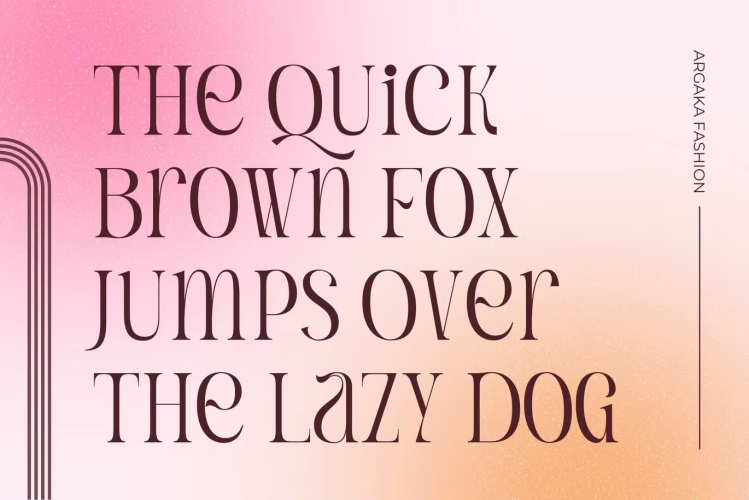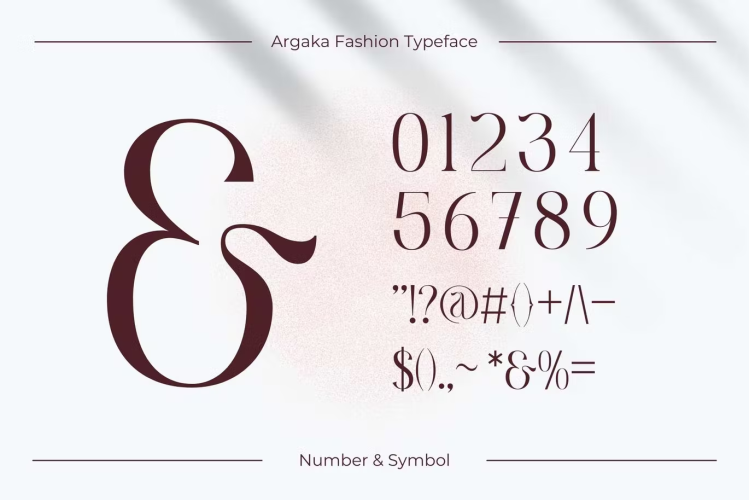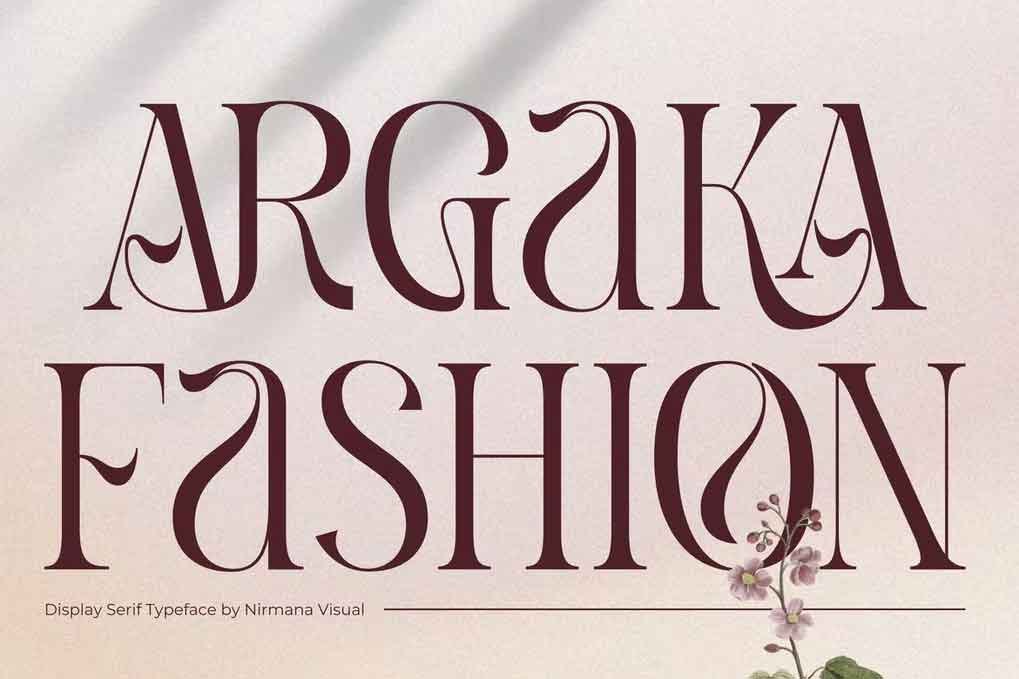
Argaka Fashion Font
Argaka Fashion, contemporary of Serif Display font,
Argaka Fashion offers beautiful typographic harmony for a diversity of design projects, including logos & branding, social media posts, advertisements & product designs.
Argaka Fashion Font is a Serif Fonts font that brings a professional and versatile look to your projects. Argaka Fashion , contemporary of Serif Display font, Argaka Fashion  offers beautiful typographic harmony for a diversity of design projects, including logos & branding, social media posts, advertisements &.